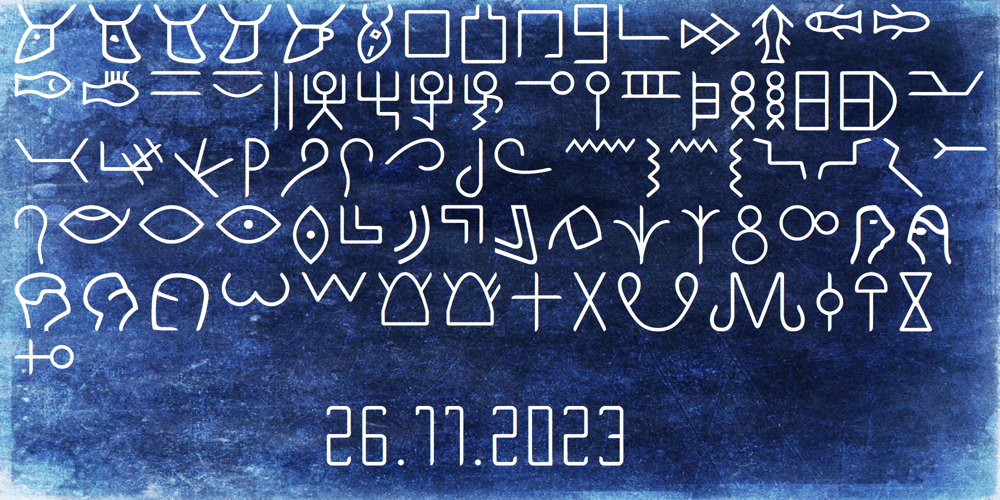
Ongunkan Proto Canaanite
Ongunkan Proto Canaanite font
Ongunkan Proto Canaanite Font Family was designed by Osman Nuri ALKAN and published by Runic World Tamgacı. Ongunkan Proto Canaanite contains 1 styles and family package options. Proto-Sinaitic (also referred to as Proto-Canaanite when found in Canaan, or Early Alphabetic) is found in a small corpus of c. 40 inscriptions and fragments, the vast majority from Serabit el-Khadim in the Sinai Peninsula, dating to the Middle Bronze Age. They are considered the earliest trace of alphabetic writing and the common ancestor of both the Ancient South Arabian script and the Phoenician alphabet, which led to many modern alphabets including the Greek alphabet. According to common theory, Canaanites or Hyksos who spoke a Canaanite language repurposed Egyptian hieroglyphs to construct a different script.The earliest Proto-Sinaitic inscriptions are mostly dated to between the mid-19th (early date) and the mid-16th (late date) century BC.